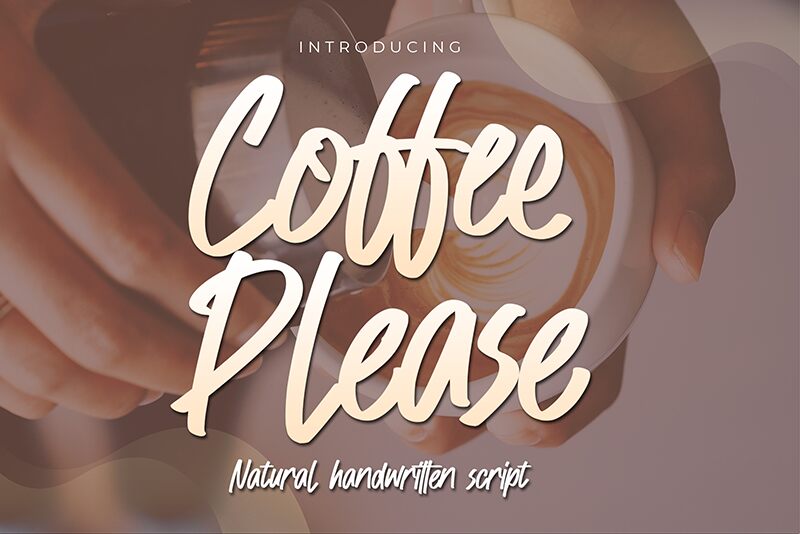
Coffee Please is a light and narrow handwritten font designed by Anang F & Malik Wsn of Gassstype Studio. It's an ideal choice for projects that require a personal feel, such as invitations, greeting cards, logos and more.
Coffee Please